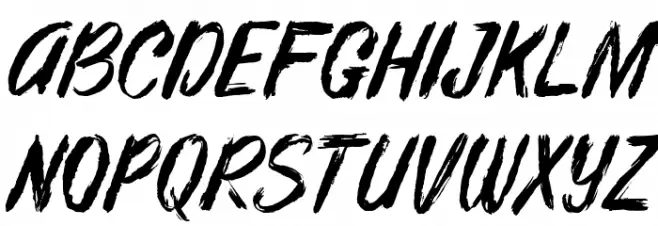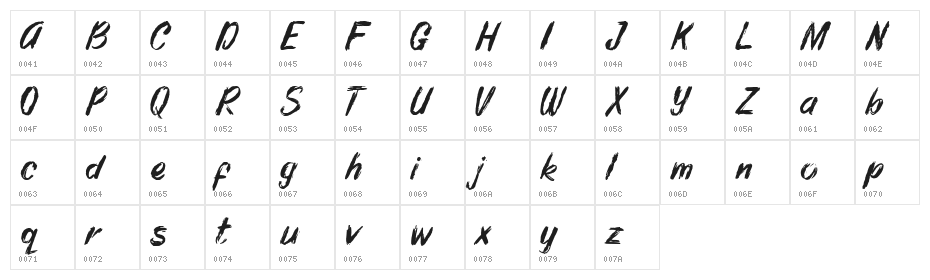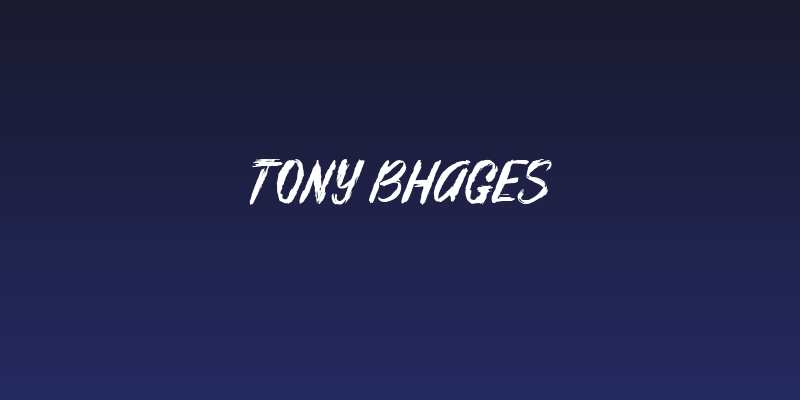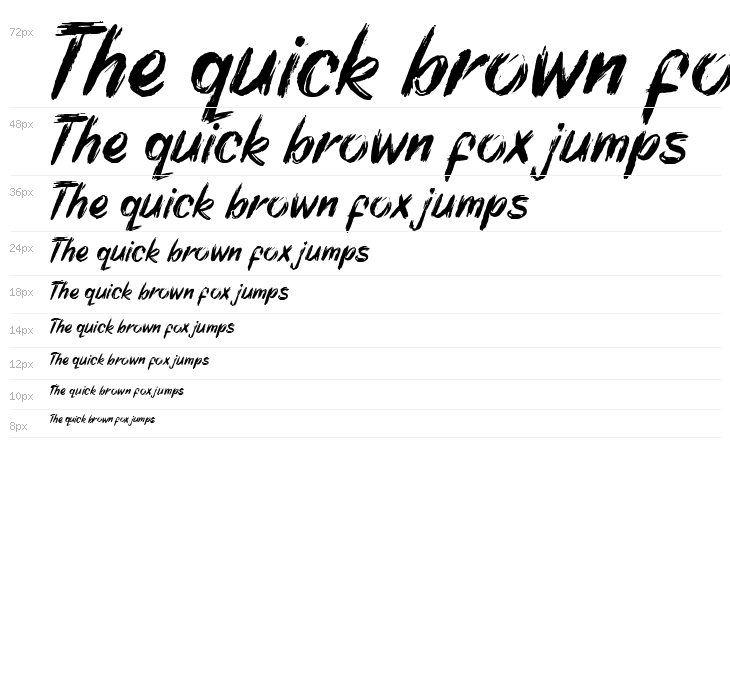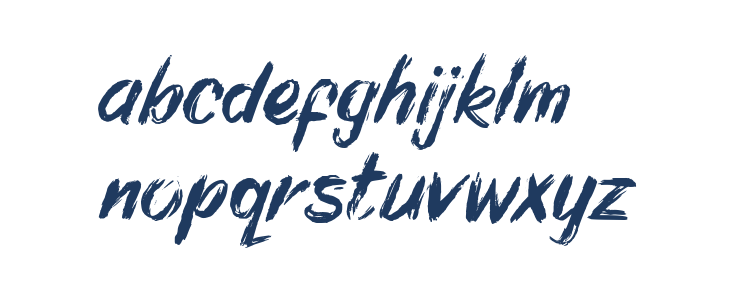
Tony Bhages Font
Tony Bhages Description
This font features a bold, expressive brush style that exudes energy and dynamism. The strokes are uneven and textured, mimicking the appearance of hand-painted letters. Each character is distinct, with a sense of movement and flair, making it ideal for creating eye-catching designs. The uppercase and lowercase letters maintain a consistent style, while the numbers and special characters complement the overall aesthetic. The font's raw and artistic nature makes it suitable for projects that require a strong visual impact.